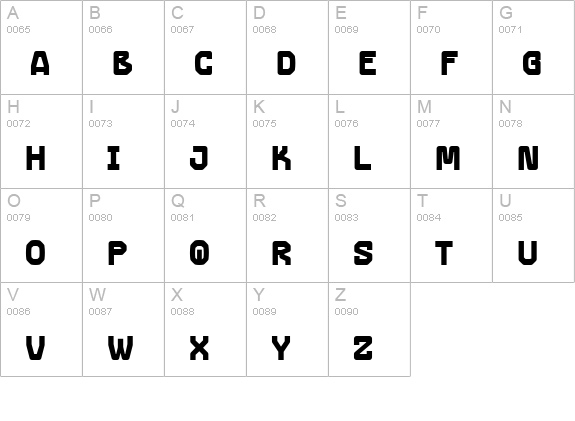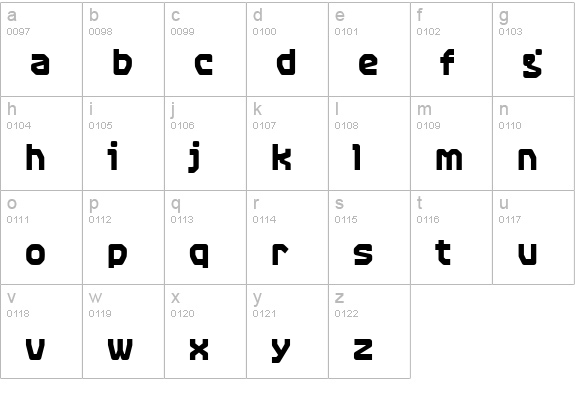
RangeBlack Font Details
Introducing RangeBlack font - a sleek and modern typeface that exudes sophistication and style. This versatile font is perfect for a wide range of design projects, from branding to editorial layouts. With its bold, eye-catching appearance, RangeBlack commands attention and adds a touch of elegance to any design. What sets RangeBlack font apart is not only its striking aesthetics but also its accessibility. This font is freely available to download at FontsMarket.com, allowing designers and creatives to easily incorporate it into their projects without any hassle. Whether you're working on a website, poster, logo, or any other design, RangeBlack font is sure to make a statement and elevate your work to the next level. Don't miss out on the opportunity to enhance your designs with the stunning RangeBlack font. Download it for free today and unleash your creativity with this stylish and versatile typeface.